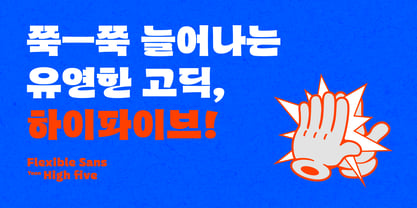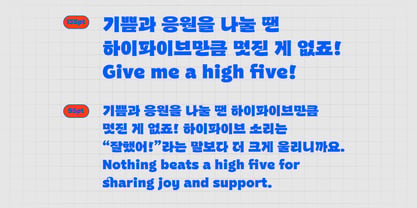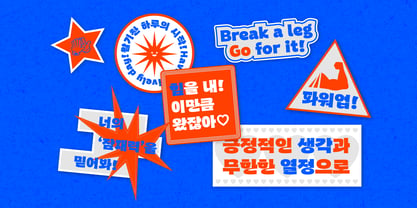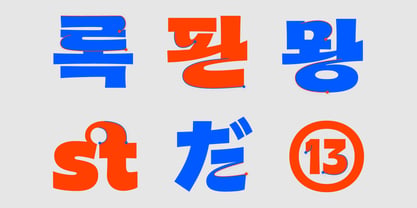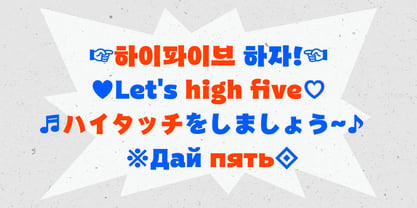
Yoon Highfive
by Yoon Design
The Yoon Highfive Font Family was designed by Yoon Design Team and published by Yoon Design. Yoon Highfive contains 1 styles. More about this family
Yoon Highfive is a bold display typeface with flexible, stretched letterforms. Dynamic strokes and elastic movement create a lively impression, while its heavy weight makes it ideal for headlines demanding immediate visual attention.
Family size: A single weight.
Glyph count: 2,780 hangeul glyphs, 95 Latin glyphs, 17 Latin ligatures, and 986 KS symbols.
Language support: Multi-lingual support for English, Korean, and more.
Designers: Yoon Design Team
Foundry: Yoon Design